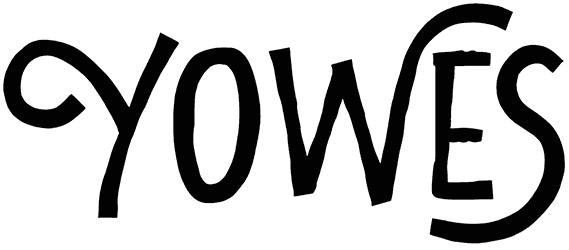
Yowes Font
If you care about how impressive the words of your playful design will be, this cute font will be engaging for you. Yowes font’s characters convey a funny vibe with their handwritten style. This cartoon font lacks lowercase letters and numbers, but it features two sets of capital letters with distinct details.